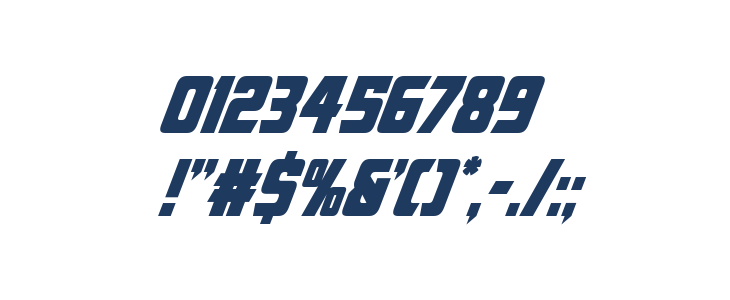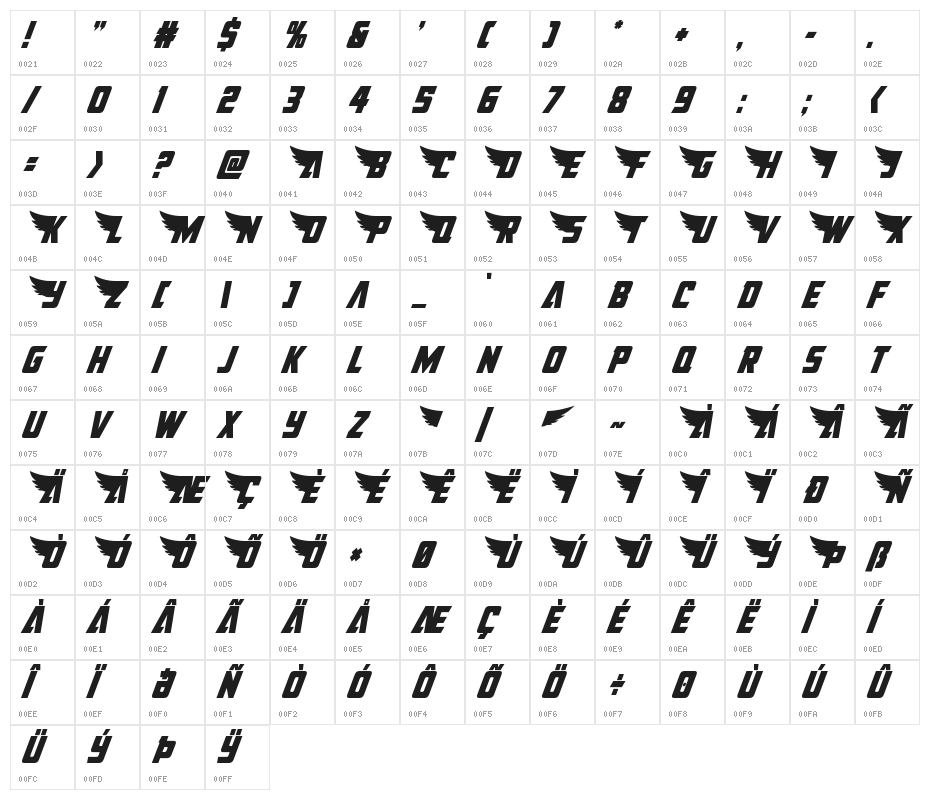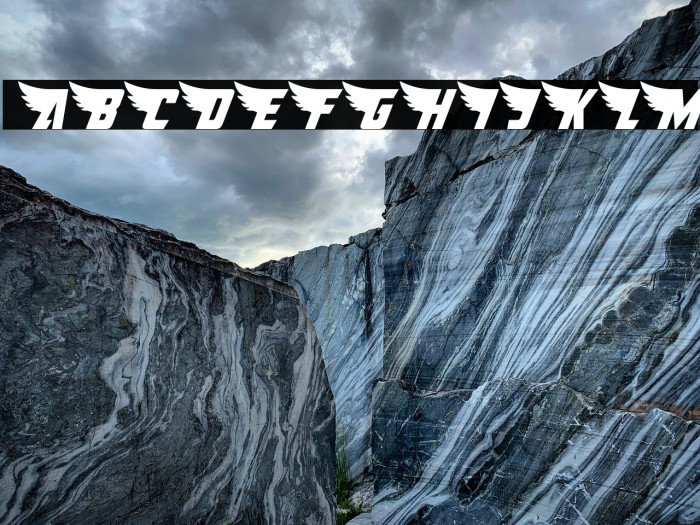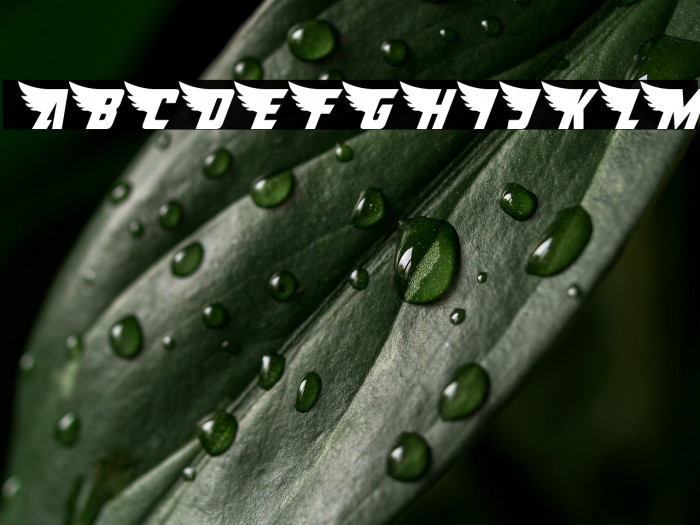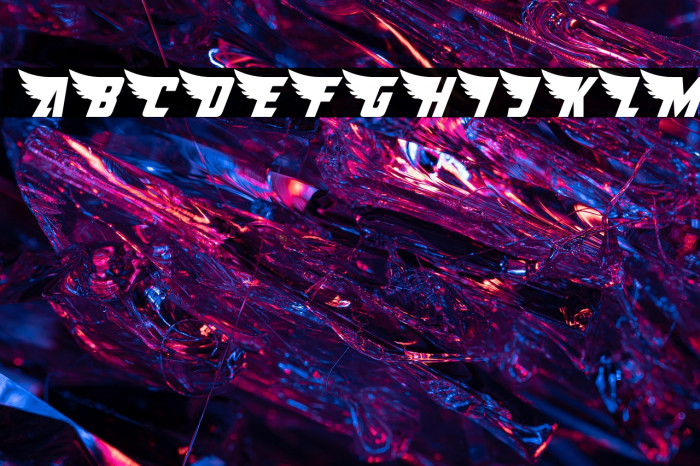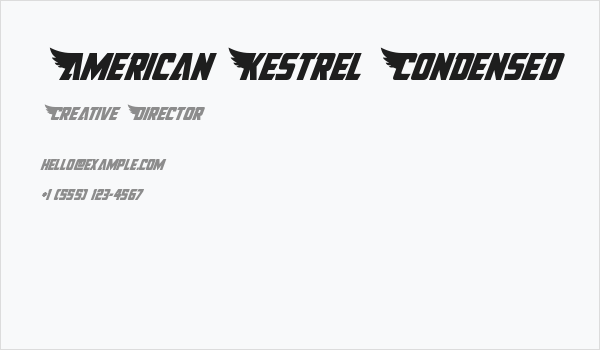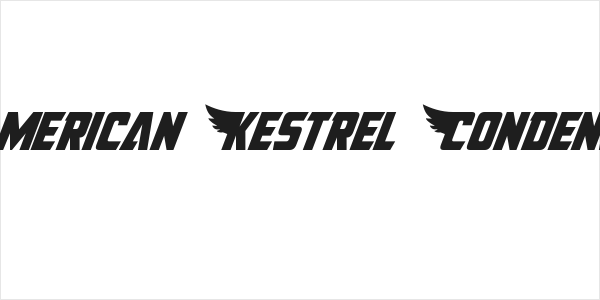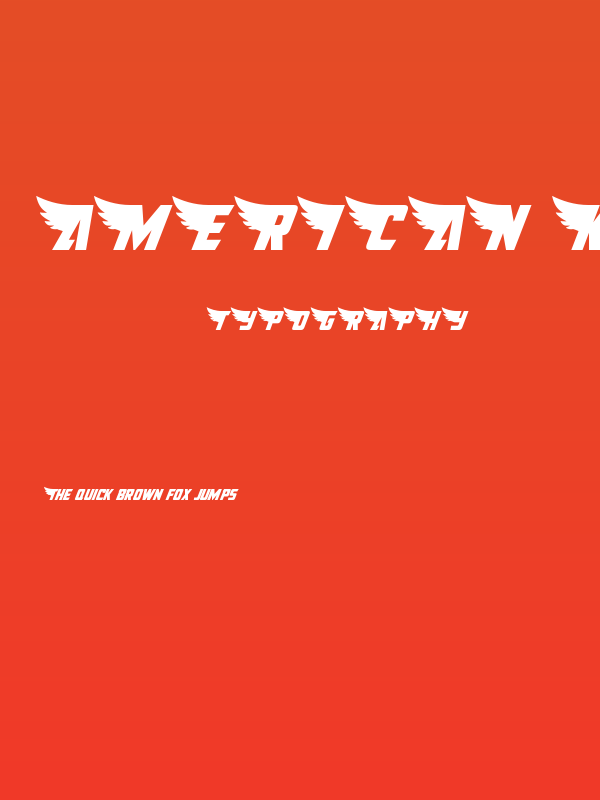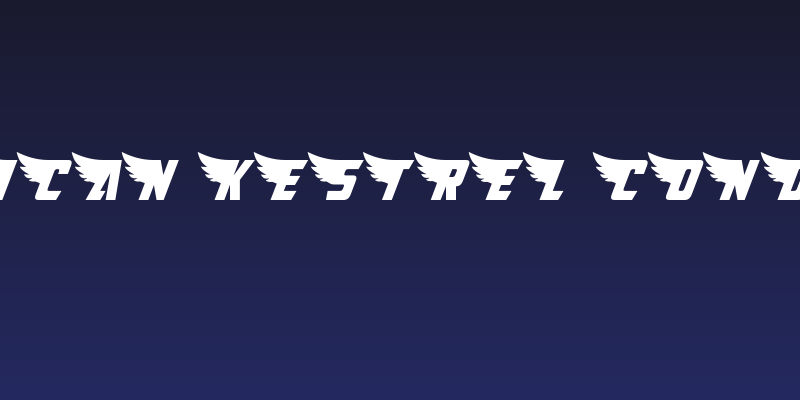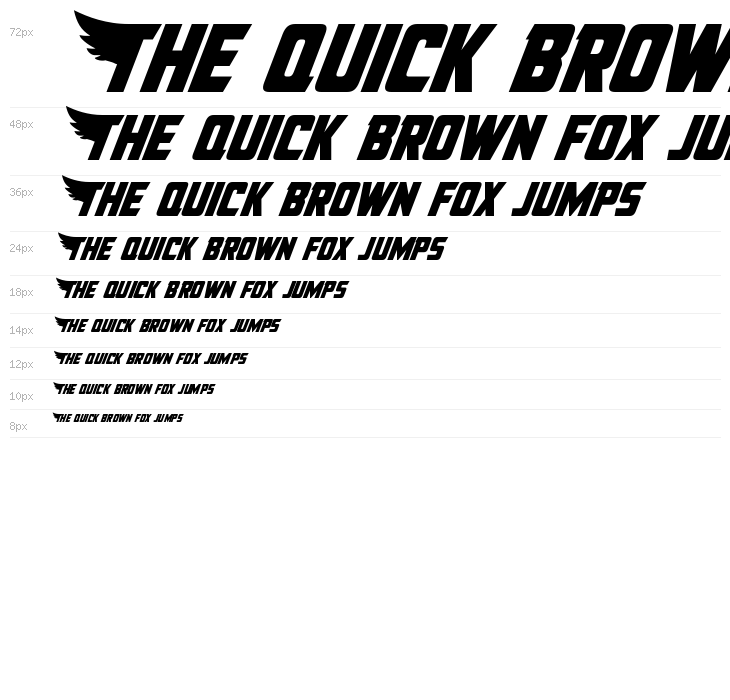
American Kestrel Condensed Font
American Kestrel Condensed Description
This font features a bold, dynamic style with a distinctive wing-like design integrated into each character, giving it a sense of motion and energy. The uppercase letters are particularly striking, with sharp angles and a condensed form that enhances their impact. The numbers and special characters maintain the same boldness and unique flair, making them suitable for attention-grabbing designs. The overall aesthetic is modern and edgy, perfect for projects that require a strong visual presence.
| Proposed Projects | Ideal for sports branding, action-themed posters, dynamic logos, and any project needing a bold, energetic typeface. |